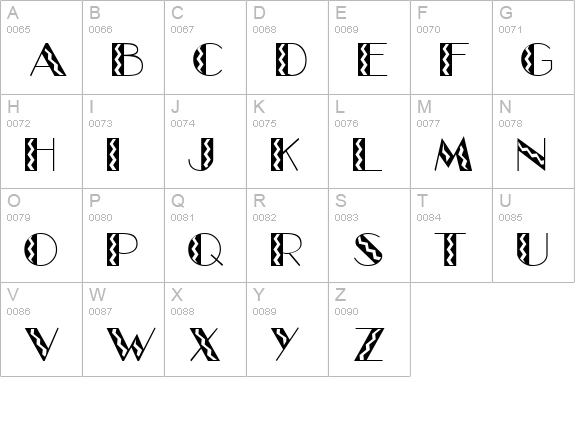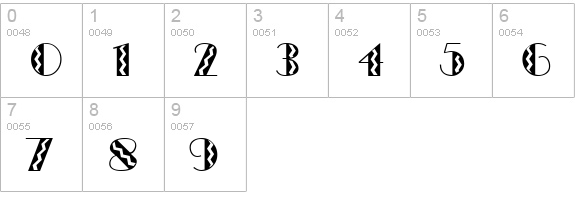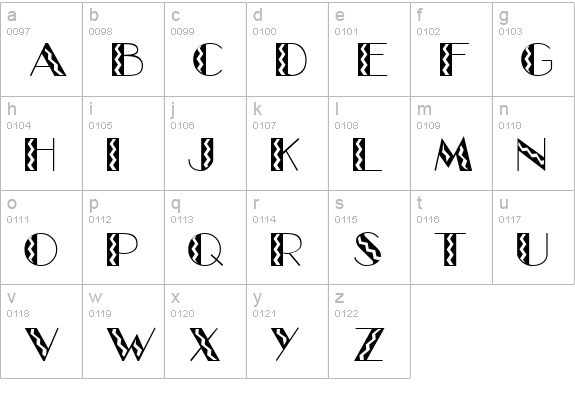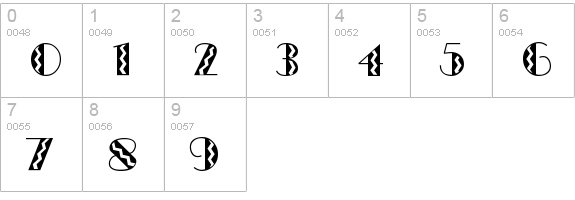
GlitzyFlash Font Details
GlitzyFlash font is a dazzling and eye-catching typeface that exudes glamour and sophistication. With its sleek lines and stylish curves, this font is perfect for adding a touch of luxury to your designs. Whether you're creating invitations, posters, or logos, GlitzyFlash font is sure to make a statement. The best part? GlitzyFlash font is completely free to download at FontsMarket.com! This means you can elevate your projects with this stunning font without breaking the bank. Don't miss out on the opportunity to add a touch of sparkle to your designs with GlitzyFlash font - download it today and let your creativity shine!